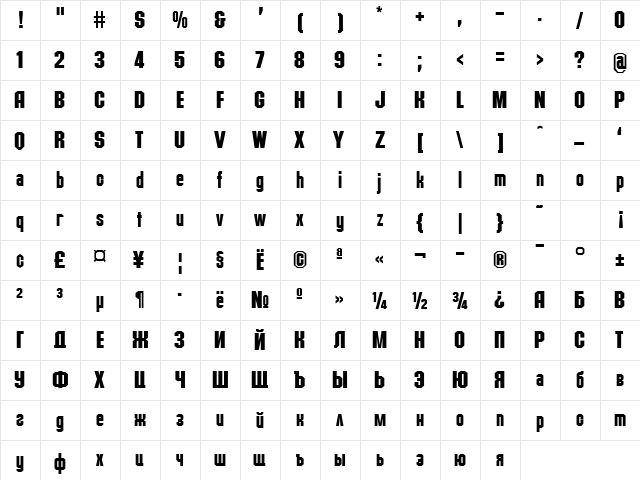
Mechanica Normal
Design Context for Mechanica Typeface
Mechanica is a composed and adaptable typeface that performs quietly and consistently across a wide range of design contexts.